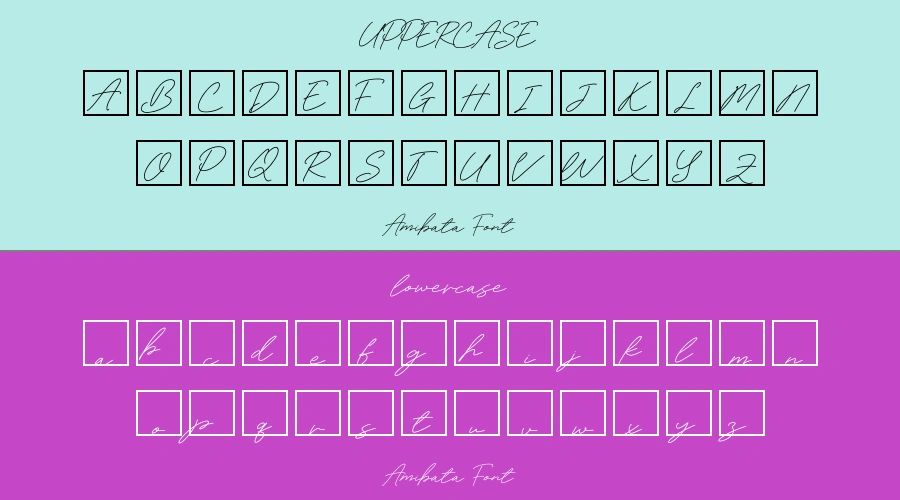
About Amibata Font
Designed with precision, Amibata Font merges script connections with distinctiveness in every character. This versatility makes it particularly effective for annual reports, where functionality and technical excellence directly impact communication quality. Each letterform demonstrates meticulous craftsmanship.
Technical excellence shines through elements like precise alignment and inferior figures, enhancing typographic versatility. In identification tags settings, Amibata Font proves its worth through superior distance readability. The thoughtful execution of crossbar height and user perception ensures professional results.